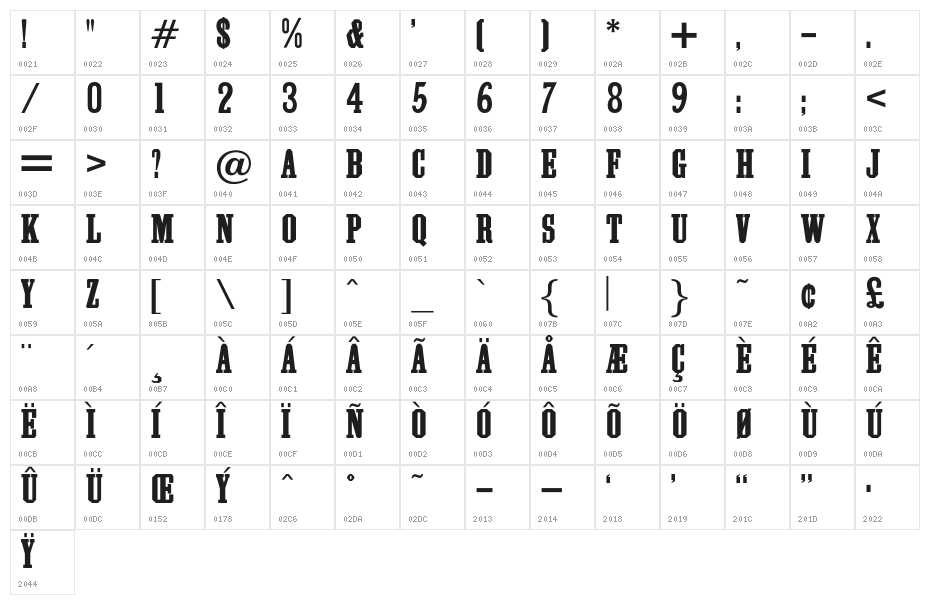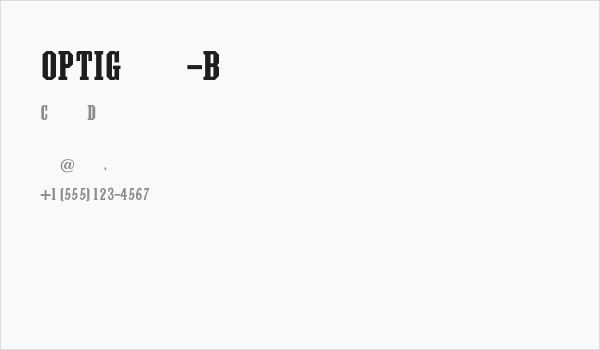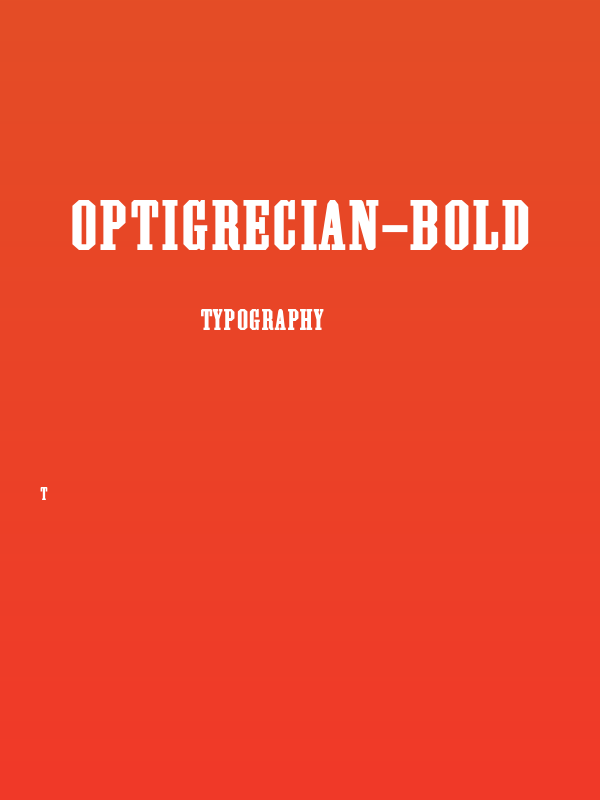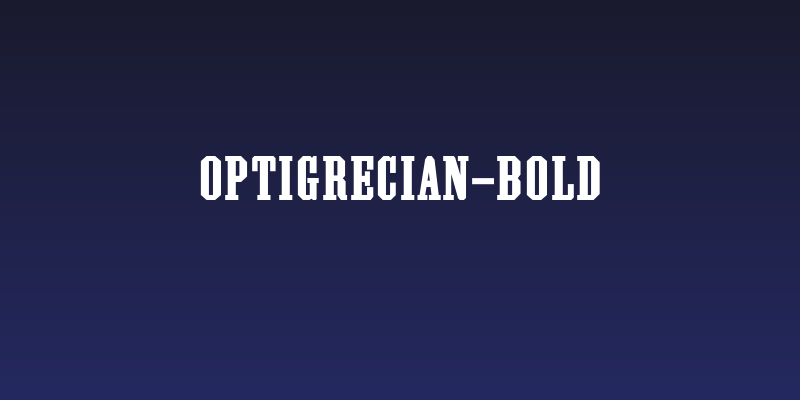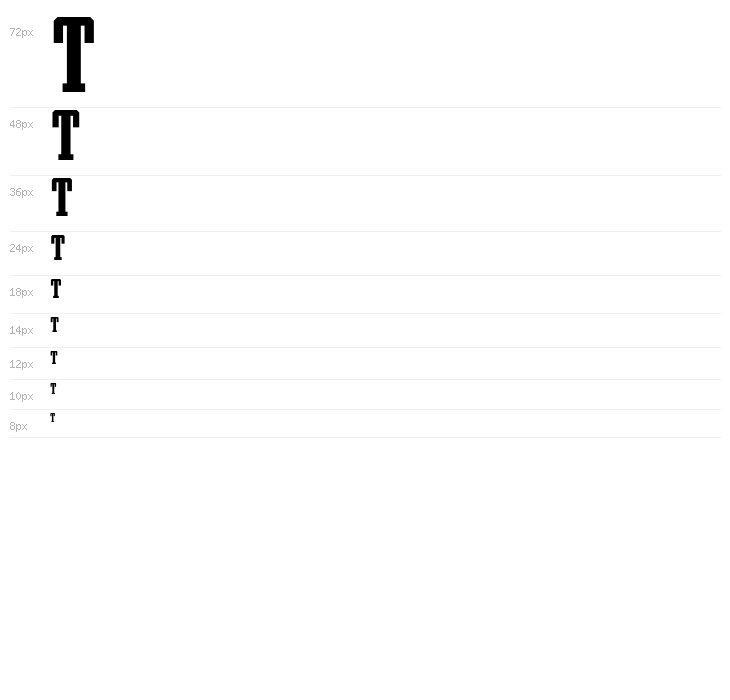
OPTIGrecian-Bold Font
OPTIGrecian-Bold Description
This font features a bold and impactful design with strong, thick strokes that convey a sense of authority and presence. The characters are uniformly structured, with a consistent height and width that enhances readability. The uppercase letters are particularly striking, with a classic serif style that adds a touch of elegance. The numerals are equally bold, maintaining the overall aesthetic of the font. Special characters are designed with the same attention to detail, ensuring they integrate seamlessly with the rest of the typeface. This font is ideal for making a statement, whether in headlines, posters, or branding materials.
| Proposed Projects | Ideal for headlines, posters, branding, and any project requiring a strong, authoritative typeface. |